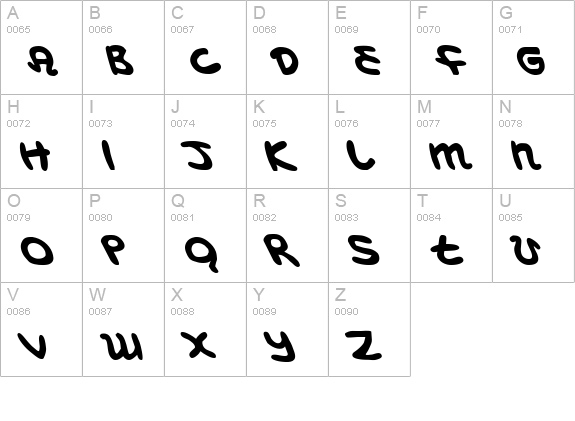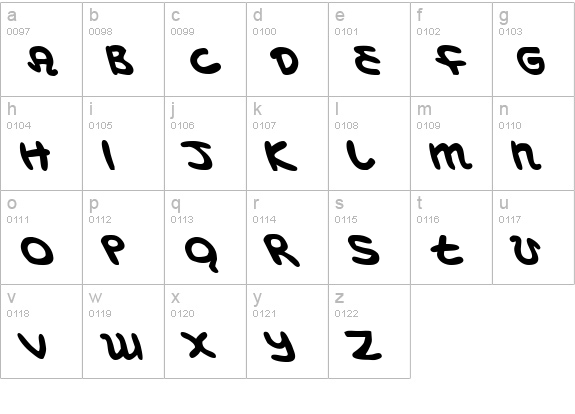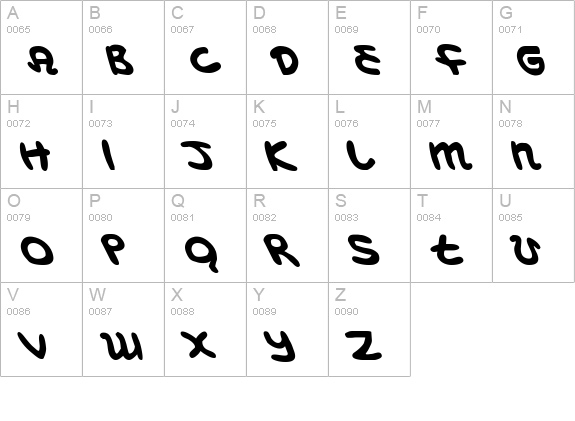
Magic Beans Leftalic Font Details
Magic Beans Leftalic font is a whimsical and enchanting typeface that will add a touch of magic to any design project. The slanted italic style gives a dynamic and playful feel, perfect for creating eye-catching headlines or adding a unique flair to invitations and posters. This font is not only visually stunning but also versatile, making it suitable for a wide range of applications. Whether you're designing a children's book, crafting a logo for a fantasy-themed business, or creating decorative elements for a special event, Magic Beans Leftalic font is sure to bring a touch of charm and wonder to your work. Best of all, Magic Beans Leftalic font is available for free download at FontsMarket.com, making it accessible to designers of all levels. Don't miss out on the opportunity to add this delightful font to your collection and start creating captivating designs today!